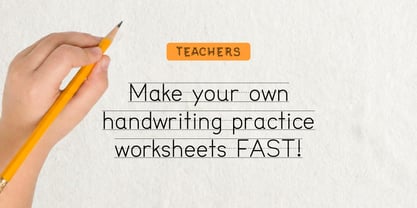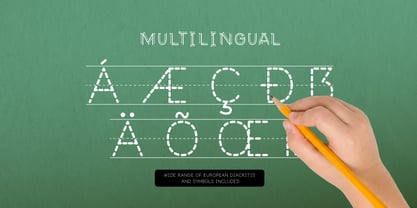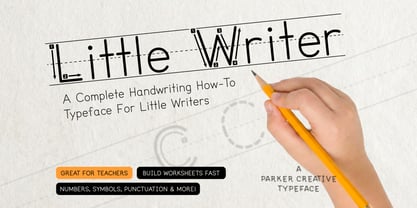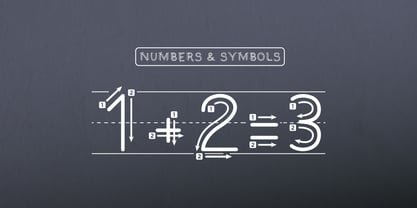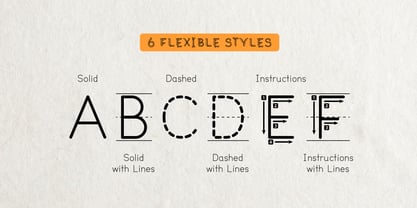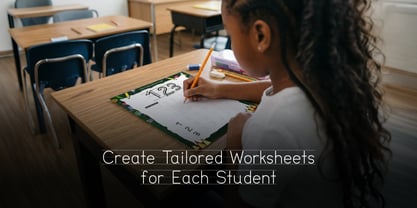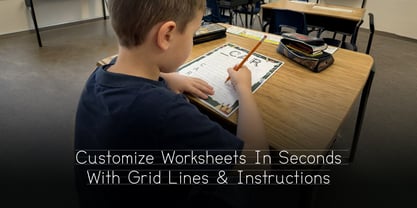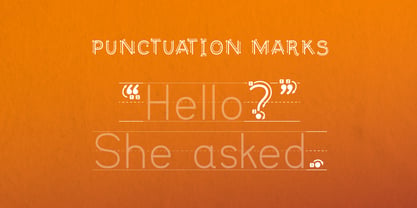
Little Writer
by Parker Creative
The Little Writer Font Family was designed by Alan Parker and published by Parker Creative. Little Writer contains 6 styles and family package options. More about this family
Teachers, parents, and homeschoolers! Tired of searching for the perfect handwriting worksheet, only to find generic PDFs that don’t quite fit your students' needs? Say hello to Little Writer, an all-in-one instructional typeface designed specifically to help you build fully customized handwriting worksheets fast for your little writers! Little Writer by Parker Creative is more than just a font; it is a comprehensive educational tool. Tailor your own worksheets in your favorite word processor or design software. Whether you are teaching a child to write their name for the first time, introducing sentence structure, or practicing math equations, Little Writer makes the process effortless and fast. With 6 Flexible Styles and an expansive character set, Little Writer is designed to guide learners through every stage of writing development. Style Variations Solid: A clean, rounded sans-serif perfect for reading and independent writing practice. Solid with Lines: The solid letterforms placed perfectly on primary guide lines (top, middle dashed, and bottom). Dashed: The classic "connect-the-dots" style for initial tracing practice. Dashed with Lines: The dashed style integrated with primary guide lines for precise height and alignment training. Instructions: This advanced style features directional arrows and numbered steps overlaid on the characters, teaching the correct stroke order and directionality. Instructions with Lines: The ultimate learning tool—stroke order guides combined with primary lines to ensure perfect formation from start to finish. Expansive Character Set Punctuation & Symbols: The font includes a full set of standard punctuation marks. From simple periods and commas to question marks and quotes, you can create complete sentences and paragraphs for your students to copy. Numbers & Math: Make math practice fun! Little Writer includes numbers 0-9 and standard mathematical symbols (+, -, =, etc.), all available in the same 6 styles (including stroke order instructions). Multilingual Support: Your classroom is diverse, and your resources should be too. Little Writer features a wide range of European diacritics and accents (Á, Æ, Ç, Ö, etc.), making it an excellent choice for language immersion programs and international educators. Little Writer is the teacher's secret weapon for creating engaging, effective, and personalized handwriting resources fast, making learning to write fun, easy, and accessible.
Designers: Alan Parker
Foundry: Parker Creative
Little Writer